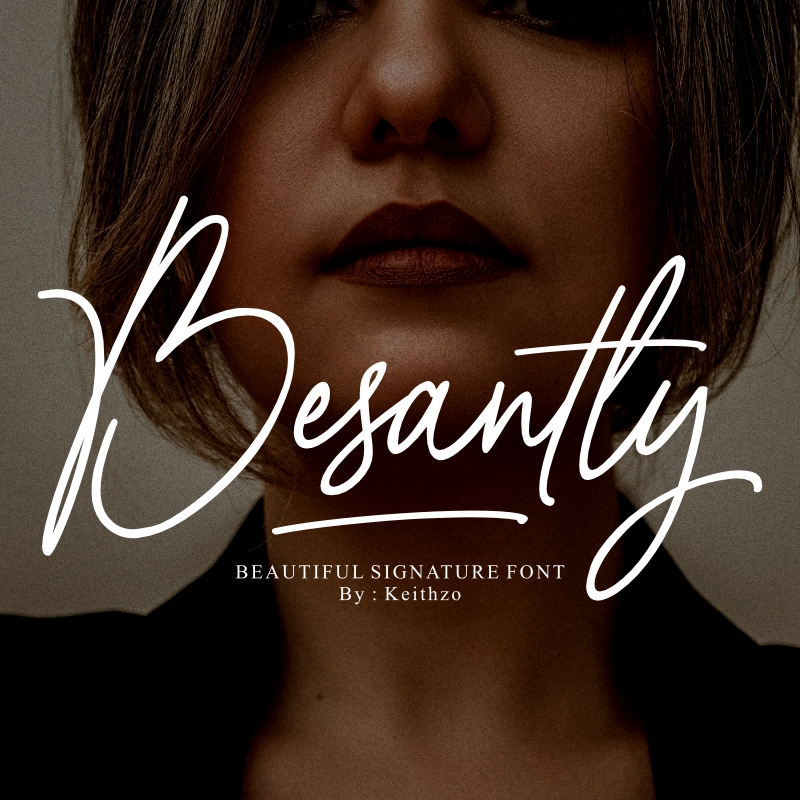
Besantty Font
Designed by Keithzo
About Besantty
Besantty is a beautiful and light handwritten font with a unique feel and a stunning impact. It will add a luxury spark to any design project that you wish to create! This font is PUA encoded which means you can access all of the amazing glyphs and alternates with ease!